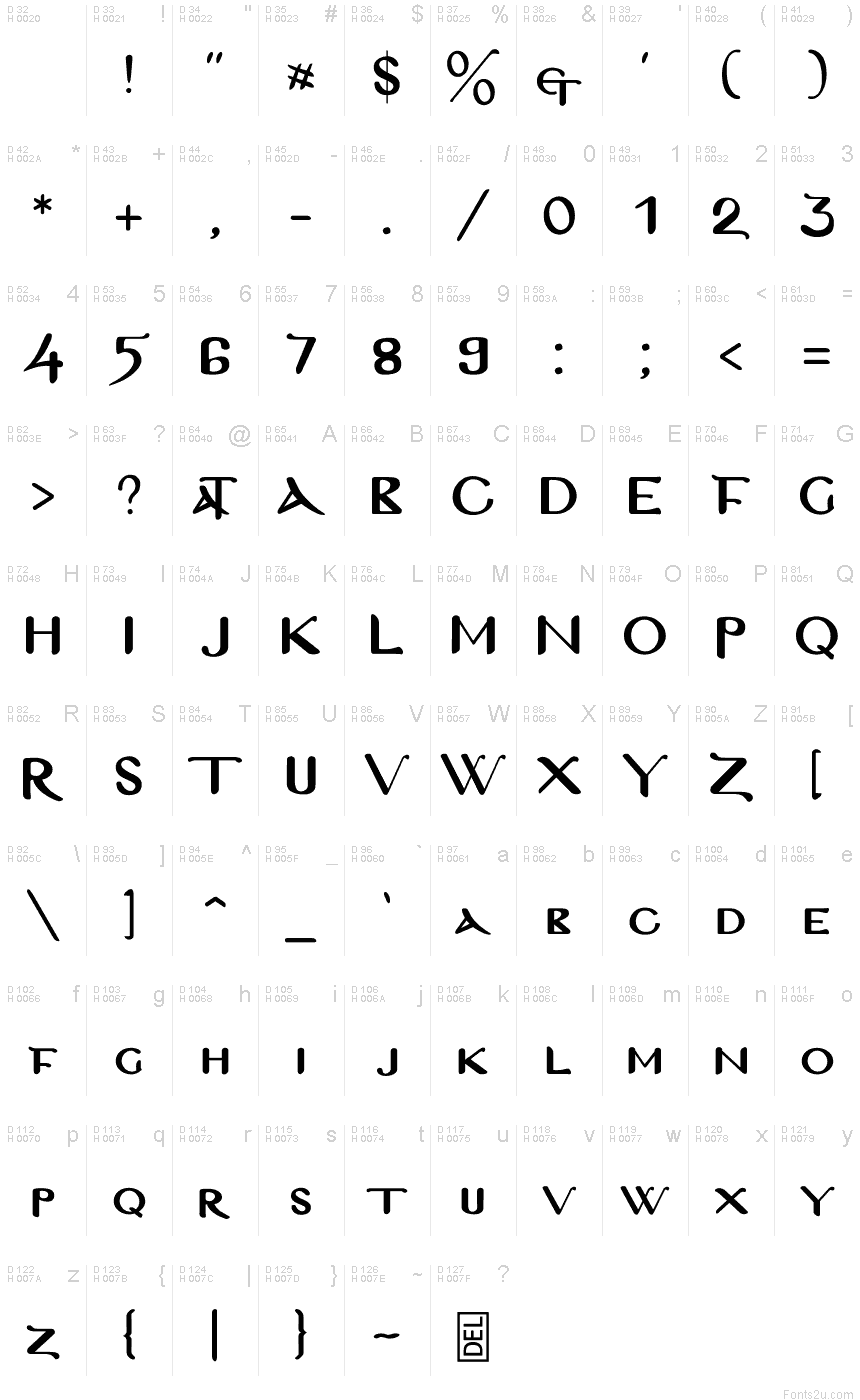
Analecta
Unicode Fonts for Ancient Scripts; George Douros; 2009
Analecta is an ecclesiastic scripts font, in Byzantine uncial style, covering Basic Latin, Greek and Coptic, some Punctuation and other Symbols, Coptic, typographica varia, Specials, Gothic and Deseret.